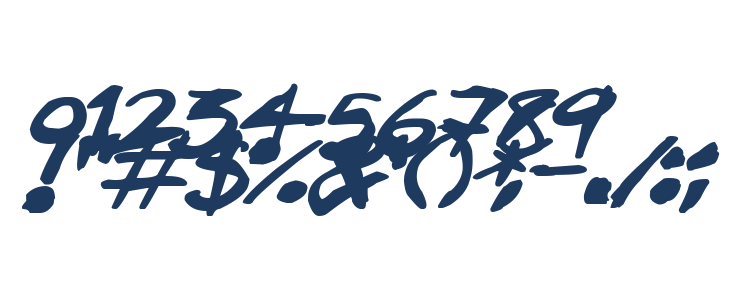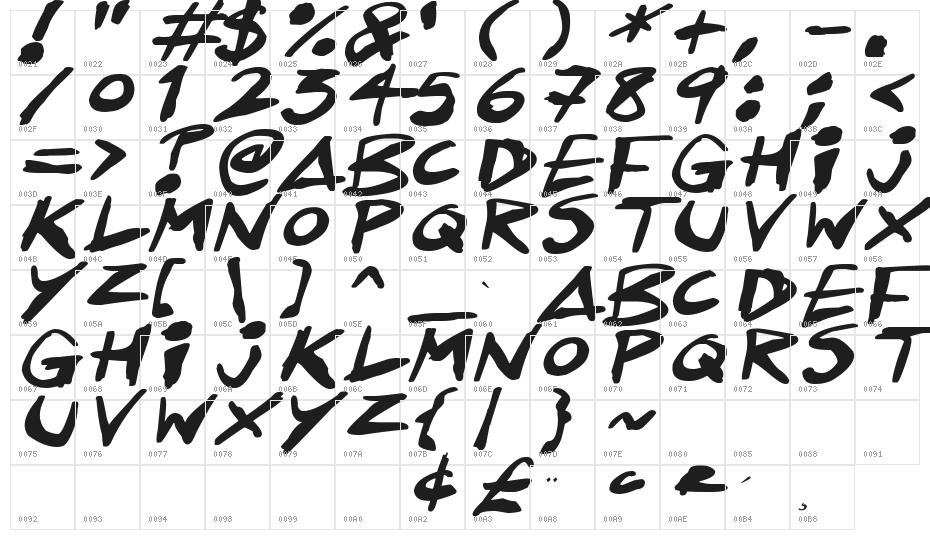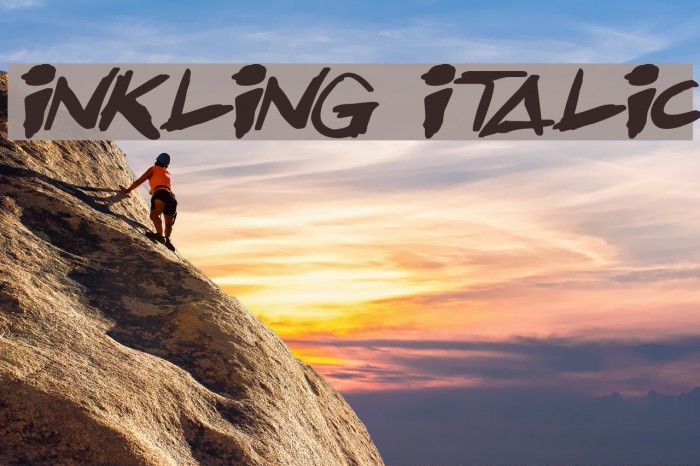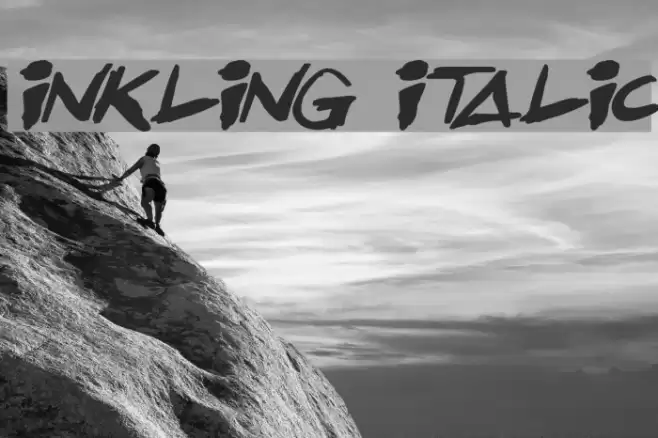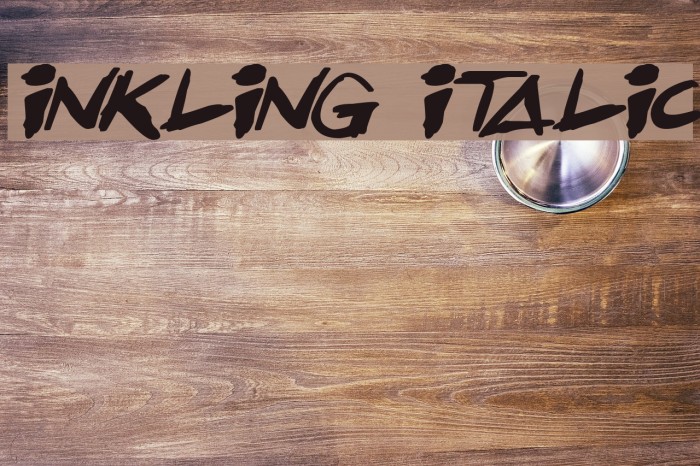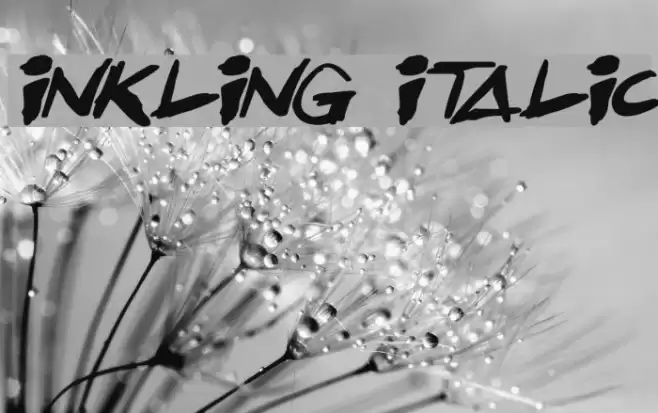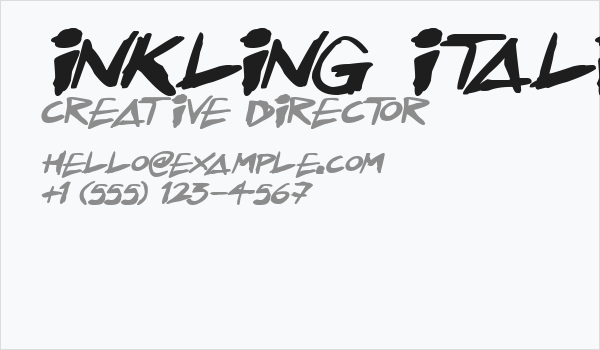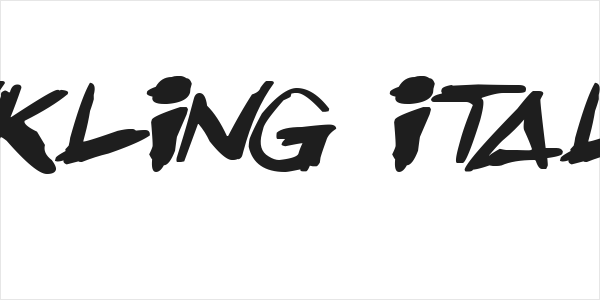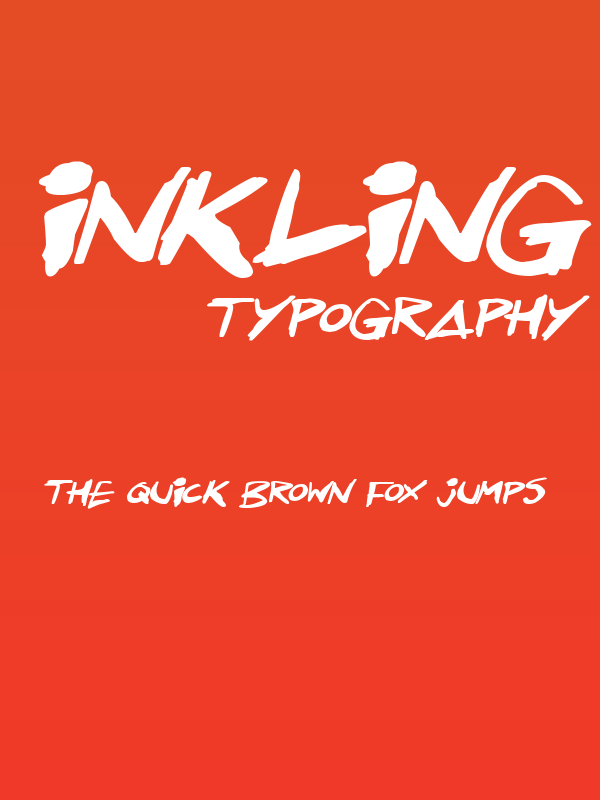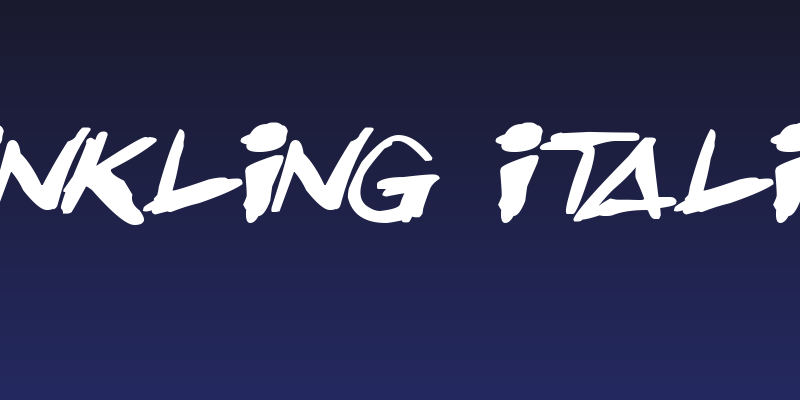
Inkling Italic Font
Inkling Italic Description
This font features a dynamic and energetic style with a handwritten appearance. The characters are bold and slightly slanted, giving a sense of motion and fluidity. The strokes are thick and uneven, adding a casual and artistic flair. The uppercase and lowercase letters maintain a consistent style, with some letters having distinctive loops and curves. The numerals and special characters are equally expressive, matching the overall lively aesthetic. This font is ideal for projects that require a personal touch or a creative, informal vibe.